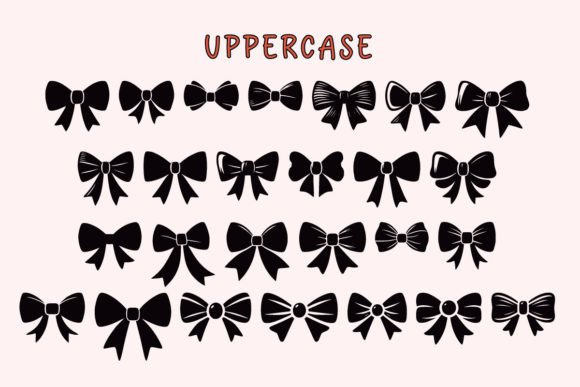
The Perfect Accessory for Your Designs: Bow Tie Font
You’ve spent hours brainstorming ideas, pouring over inspiration boards, and finally, the perfect concept strikes – a beautiful, whimsical design that’s sure to capture the hearts of your audience. But what really brings it all together? The perfect finishing touch, of course!
Enter the Bow Tie Font, a charming decorative dingbat font that adds a touch of elegance and playfulness to any project. Whether you’re creating Valentine’s Day cards, Christmas decorations, or back to school designs, this font is the perfect accessory to elevate your work. With its versatility and wide range of applications, the Bow Tie Font is a valuable addition to any designer’s toolkit.
Bow Tie Font Key Features
- Font Family: A unique, custom font designed to resemble a bow tie, ideal for creating visually striking designs.
- Unique Characteristics: Features a distinctive bow tie-inspired design, with intricate details and curves that add a touch of elegance to any design.
Bow Tie Font Review
Overall, I found the Bow Tie Font to be a bit of an enigma – it’s unique and quirky, but may not be for everyone.
- ✨ The font’s playful and whimsical nature makes it perfect for projects that need a touch of fun and personality.
- ✨ The bow tie design element is cleverly incorporated into the font, adding a layer of visual interest.
- ✨ The font is highly customizable, allowing designers to adjust the size, color, and style to suit their needs.
- ⚠️ The font may be too busy or distracting for certain types of projects, such as formal or professional materials.
- ⚠️ The bow tie design element may not be immediately clear to some viewers, which could lead to confusion or misinterpretation.
- ⚠️ The font’s quirky nature may not be suitable for projects that require a more serious or professional tone.
While the Bow Tie Font is certainly unique and eye-catching, I think it’s best suited for projects that need a playful or whimsical touch. It’s not a font for every occasion, but when used in the right context, it can be a real showstopper.
The Bow Tie font is ideal for creating unique and eye-catching designs, particularly in titles, headings, and logos. It’s also great for adding a touch of elegance and sophistication to your designs. Some common use cases include:
– Luxury brand logos and packaging
– High-end event invitations and promotional materials